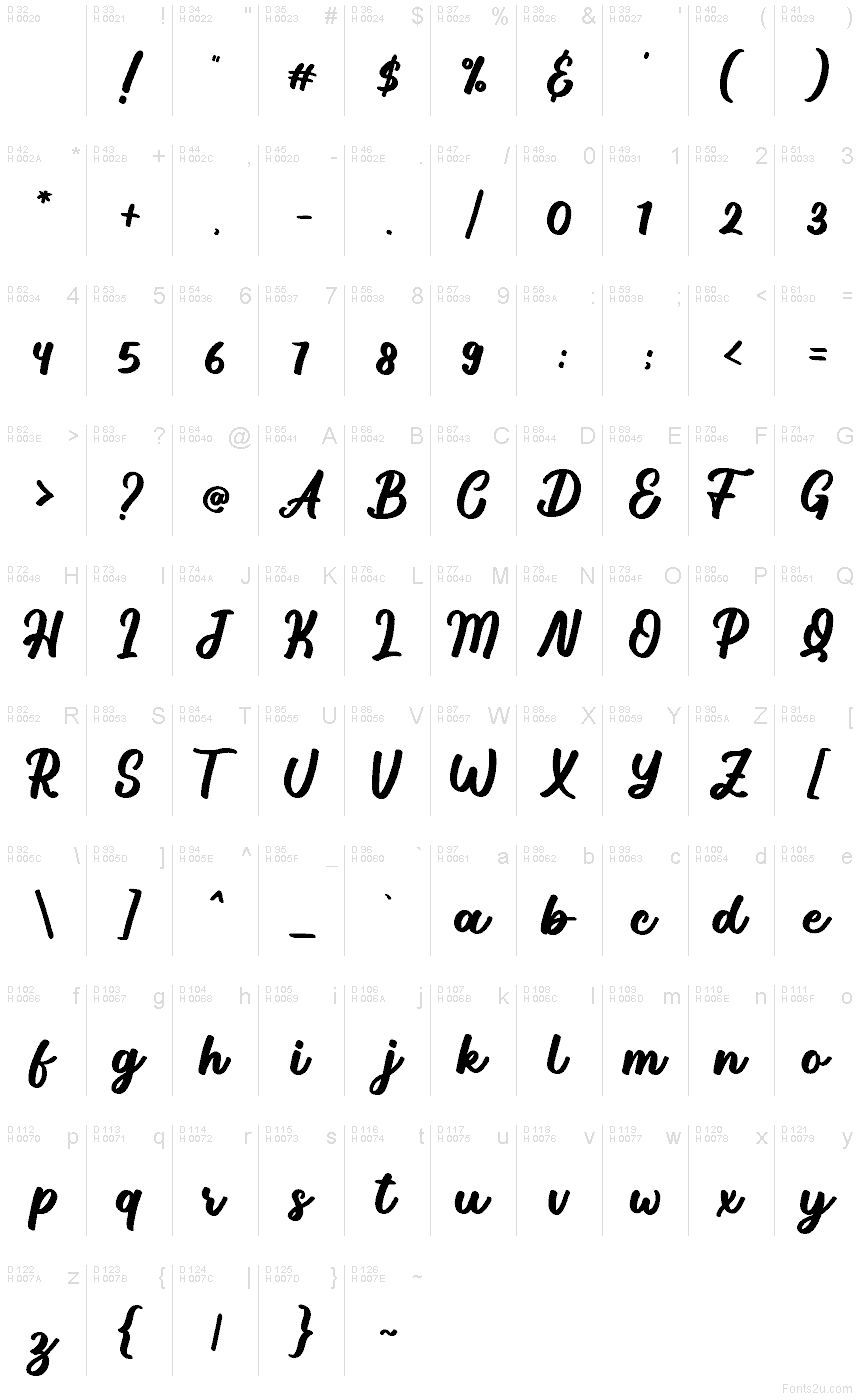
Roasted Chicken
Roasted Chicken font by Bluestype Studio is a free handwritten font of casual elegance, friendly demeanor, and contemporary appeal. It communicates a fluid motion that comes naturally in such writing styles which makes it highly captivating to readers. And with its lovely features, this font can bring life to logos, branding designs, wedding invitations, and social media posts among other projects.
In addition to design ideas already mentioned on which Roasted Chicken can be used, give it a try for packaging ideas like tote bags or coffee cups. Vivid custom posters will also look lively with the handwriting showcased as much as book covers of novels and poetry collections would!